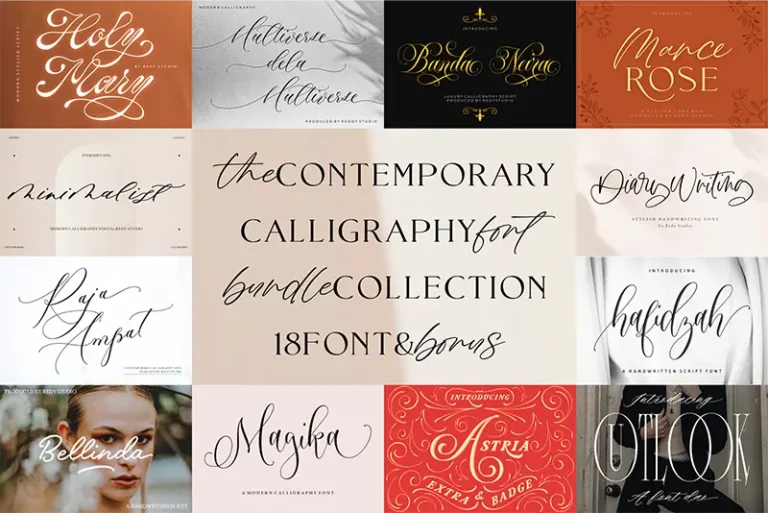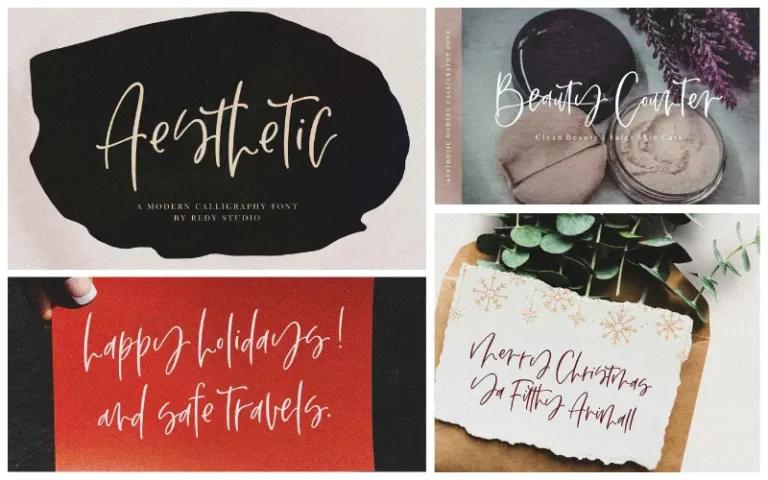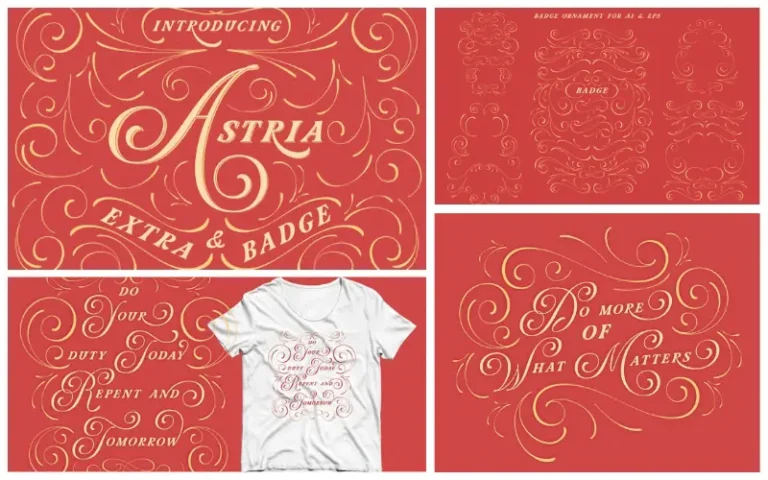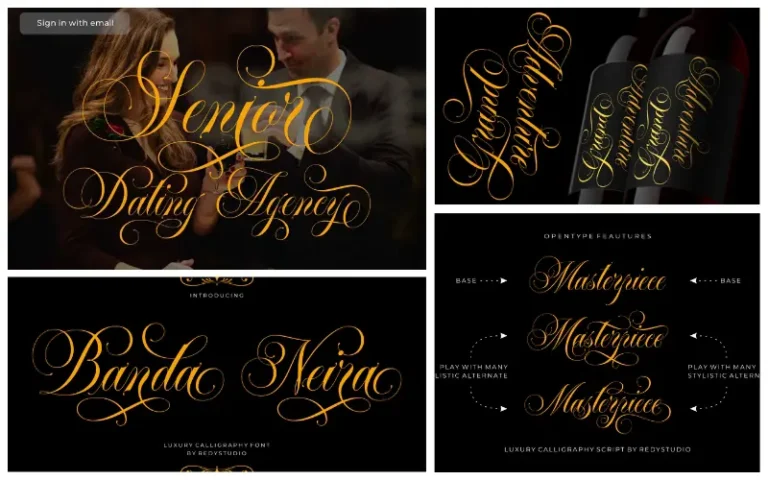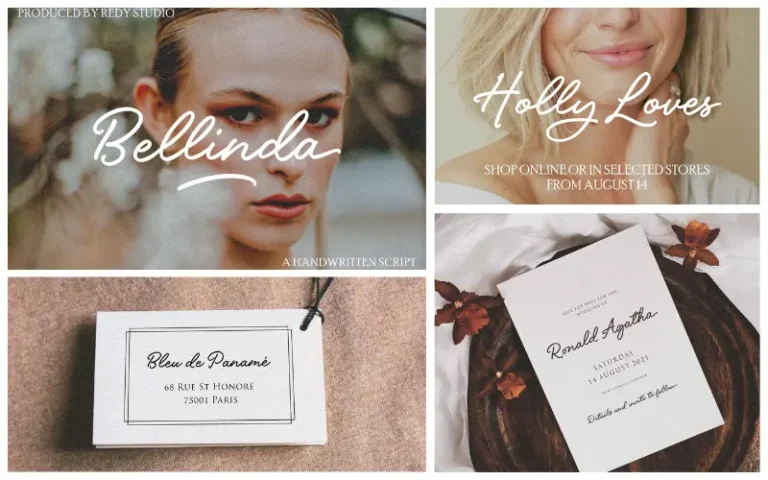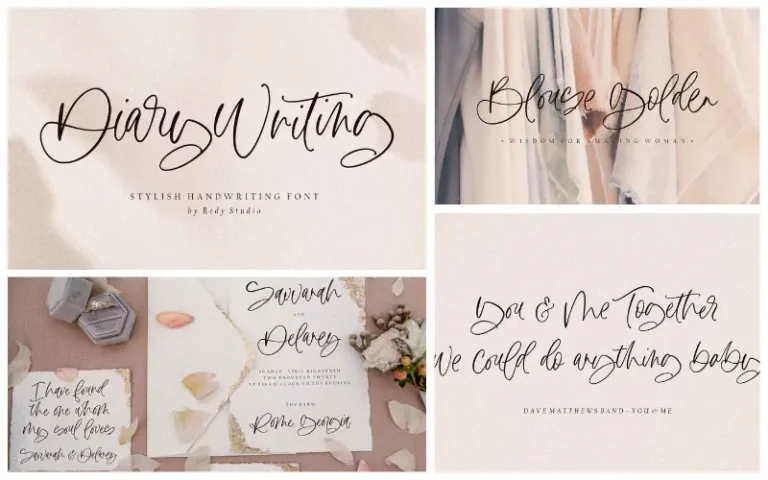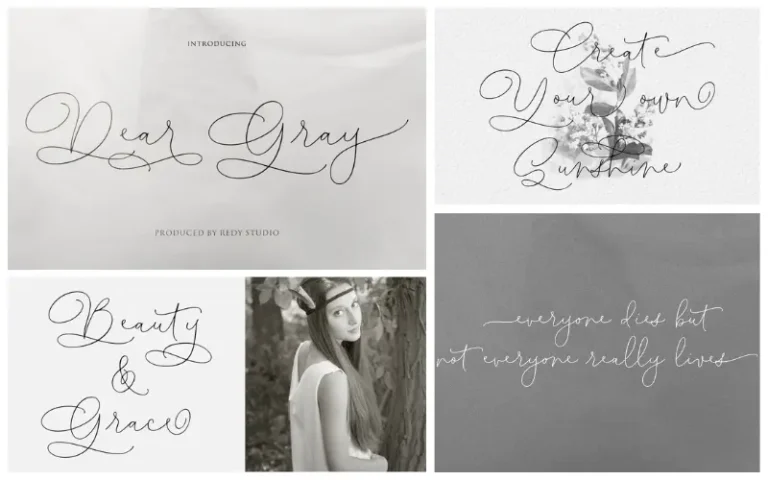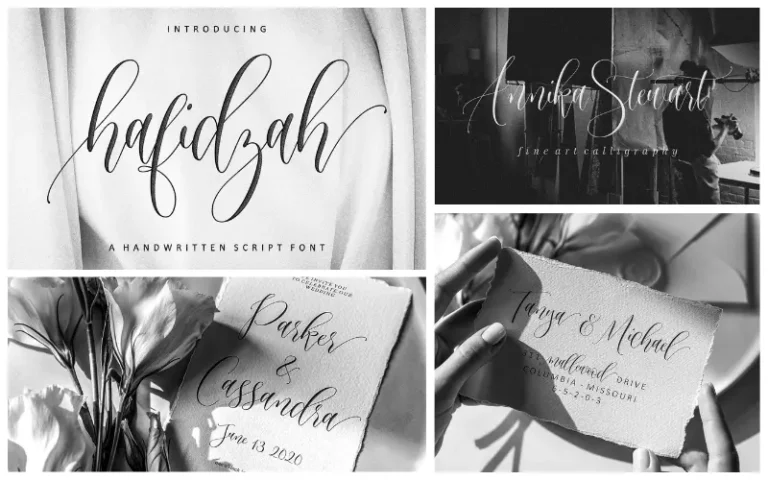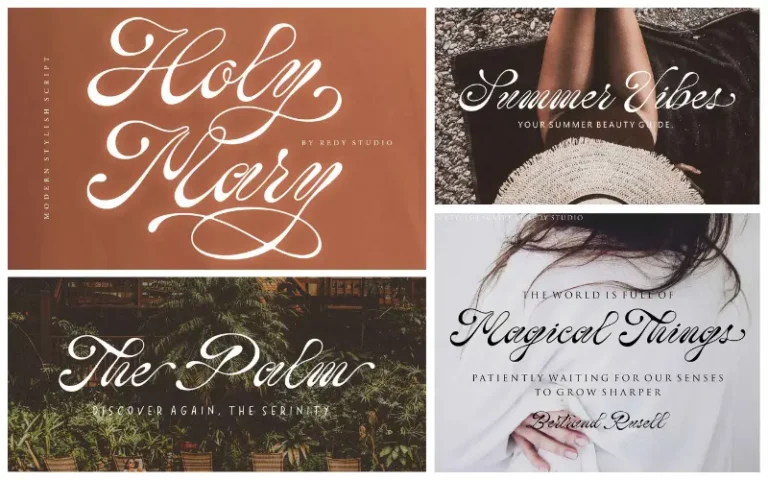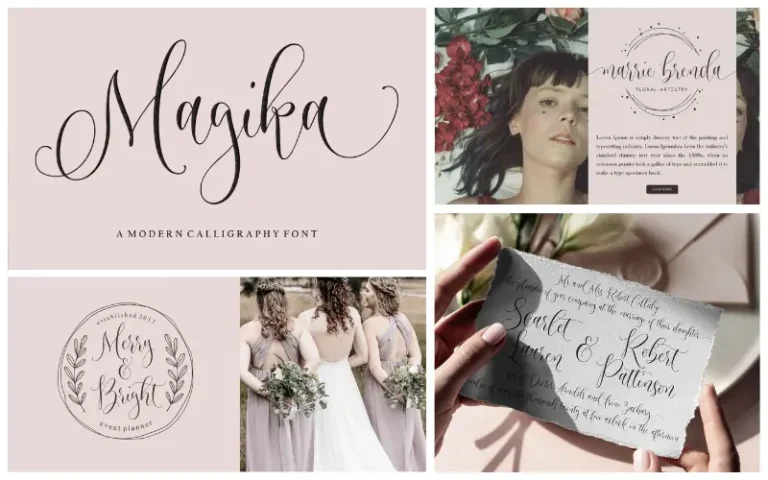
• 18 modern calligraphy script fonts.
• Multi-language support and bonus graphic elements.
Searching for the perfect contemporary calligraphy fonts can feel like chasing a needle in a haystack. But not anymore!
Introducing –
The 18 Contemporary Fonts Bundle
This bundle brings you an exquisite selection of modern calligraphy script fonts, suitable for both personal and professional use. Whether you’re designing banners, posters, cards, or print and digital materials, these fonts are here to add a chic, contemporary touch to your work.
The bundle also includes bonus graphic elements and beautiful typography, helping you elevate your designs with ease. Perfect for anyone seeking minimalist aesthetics or expressive scripts, this collection is a must-have addition to your design arsenal.
Contemporary Fonts Bundle Includes:
• Aesthetic Font
• Astria Font with bonus
• Banda Neira Font
• Bellinda Font
• Diary Writing Font
• Dear Gray Font
• Hafidzah Font
• Holy Mary Font
• Magika Font with Bonus
• Mance Rose Font with Bonus
• Minimalist Font
• Modella Font
• Multiverse Font
• Outlook Font Duo Font
• Raja Ampat Font
• Simplified Font
• Standout Font
• Way Kambas Font
• 18 modern calligraphy fonts
• Numbers, uppercase, and lowercase letters included
• Bonus graphic resources
Here's a preview of the Contemporary Fonts:
a collage of the previews of Aesthetic Contemporary fonts
A collage of the previews of the astria typeface
a collage of the previews of Banda neira Contemporary fonts
A collage of the previews of the bellinda typeface
a collage of the previews of Diary writing  Contemporary fonts
A collage of the previews of the dear gray typeface
a collage of the previews of Hafidzah Contemporary fonts
A collage of the previews of the holy mary typeface
a collage of the previews of Magika Contemporary fonts
A collage of the previews of the rose mance typeface
a collage of the previews of Minimalist Contemporary fonts
A collage of the previews of the Modella typeface
a collage of the previews of multiverse Contemporary fonts
A collage of the previews of the way outlook typeface
a collage of the previews of Raja Ampat Font Contemporary fonts
A collage of the previews of the simplified typeface
a collage of the previews of Stand out Contemporary fonts
A collage of the previews of the way kambas typeface